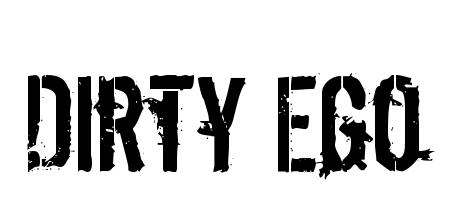
Dirty Ego
By Misprinted Type
Dirty Ego is a bold, grunge-inspired typeface. Its characters are thick and slightly irregular, giving a raw, distressed effect. The letterforms are condensed, creating a compact and impactful feel. The overall style suggests rebellion and raw energy, suitable for edgy branding or punk-rock aesthetics. The texture hints at a hand-distressed or digitally-altered effect.